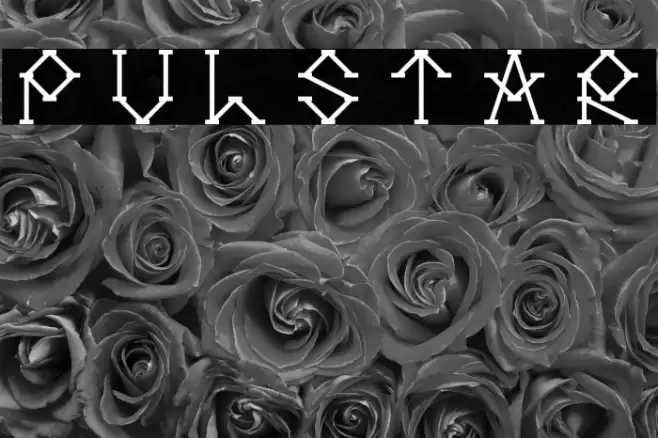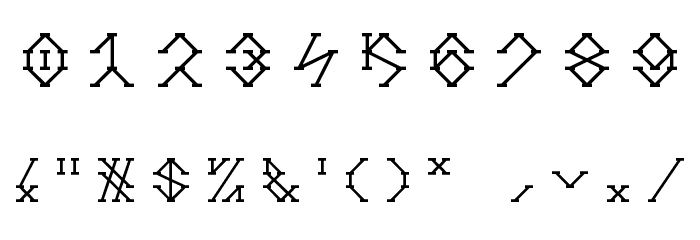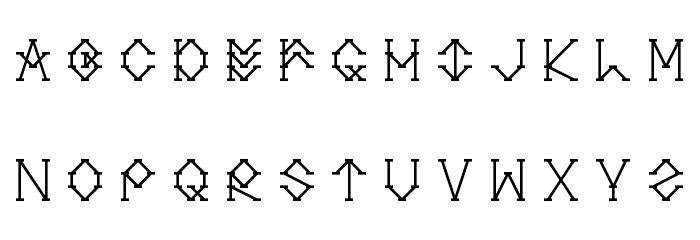
Pulstar Font
Pulstar Description
This font features a highly decorative and geometric style, characterized by its angular and interconnected letterforms. Each character is constructed with sharp lines and angles, creating a futuristic and mechanical appearance. The uppercase and lowercase letters maintain a consistent design, with unique embellishments that give the font a distinct identity. The numerals and special characters follow the same design principles, ensuring uniformity across all glyphs. This font is ideal for projects that require a bold and striking visual impact, such as video game titles, sci-fi themed posters, or branding for tech companies.
A decorative, geometric font with angular and interconnected letterforms from Regular fonts.
- Proposed Projects: Ideal for video game titles, sci-fi themed posters, and tech branding.
- Overall Style: Futuristic, Mechanical